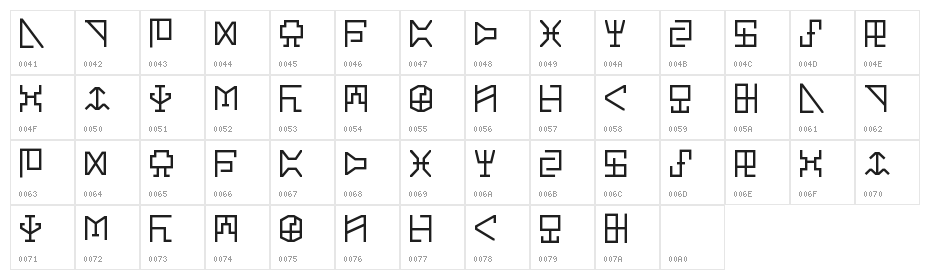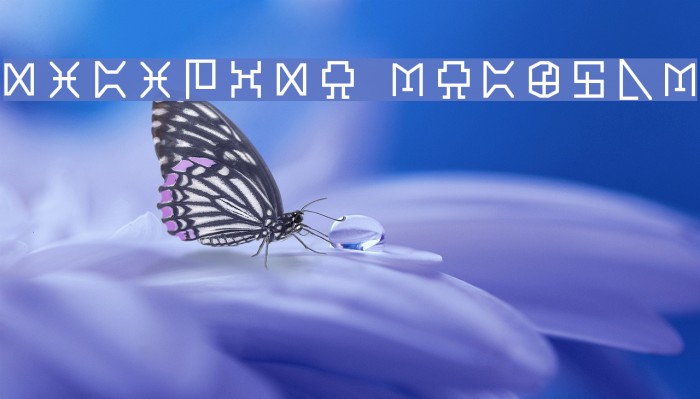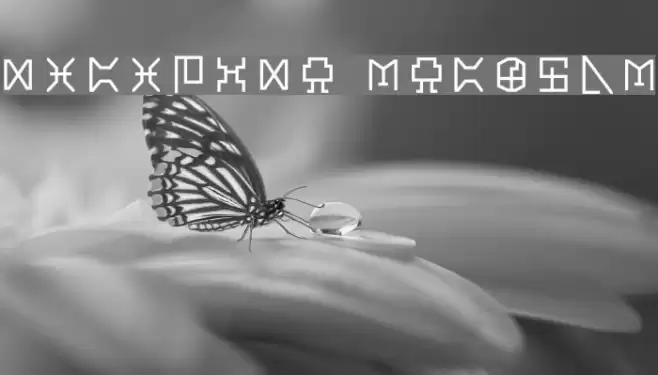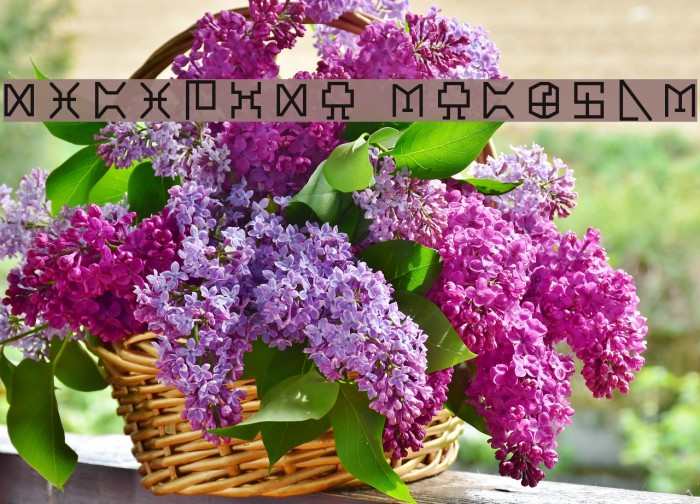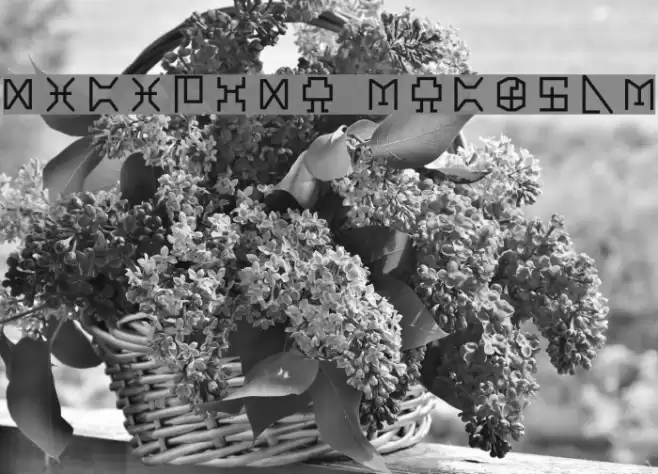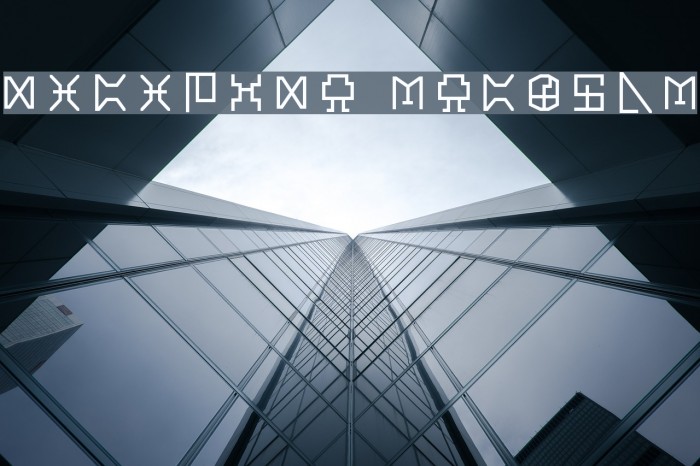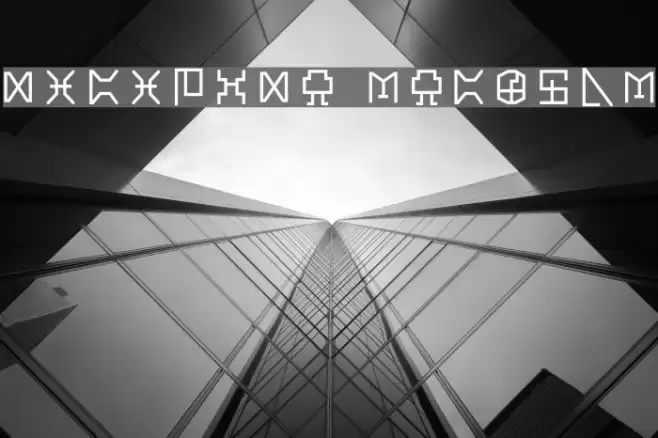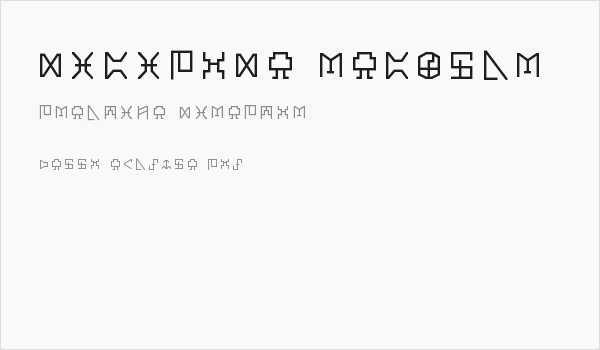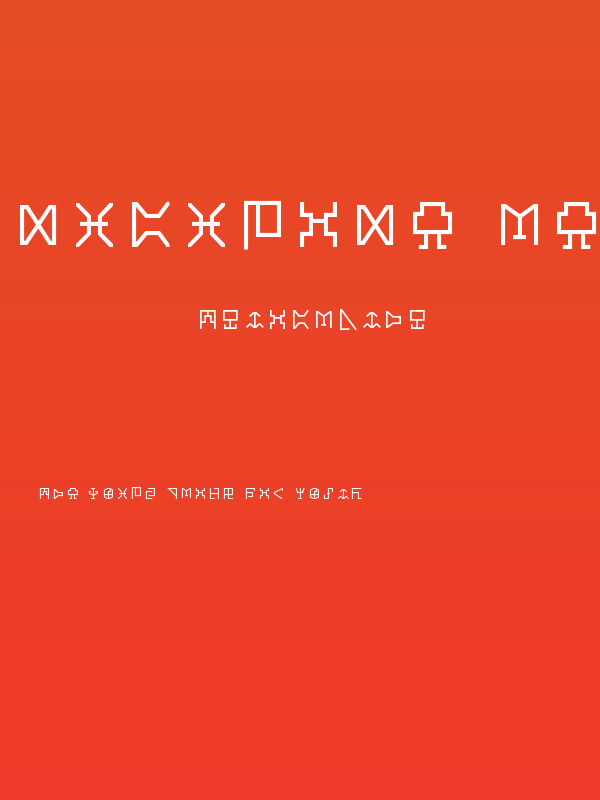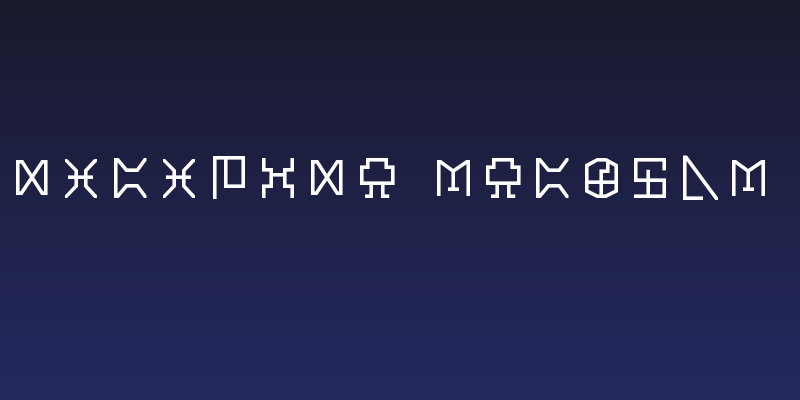
Digicode Regular Font
Digicode Regular Description
This font features a futuristic and geometric design, characterized by angular shapes and a digital aesthetic. Each character is constructed with sharp lines and corners, creating a sense of modernity and technological advancement. The uniformity and precision of the characters give it a structured and mechanical feel, reminiscent of digital codes or electronic displays. The font's unique style makes it stand out, offering a distinct look that is both innovative and visually striking.
TwoNineFive - Maximillian Limpo
| Use Case | Logos, Headlines, Digital interfaces |
| Proposed Projects | Ideal for tech-related branding, digital art projects, video game interfaces, and sci-fi themed designs. |